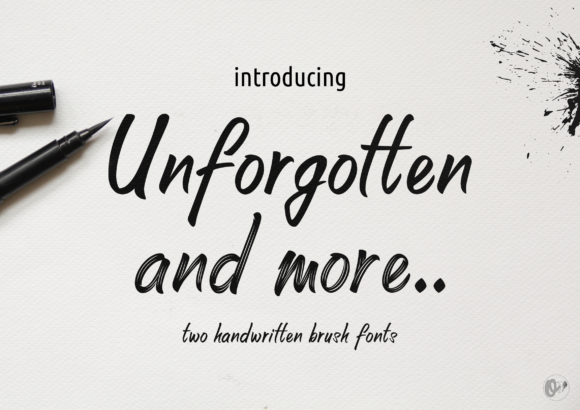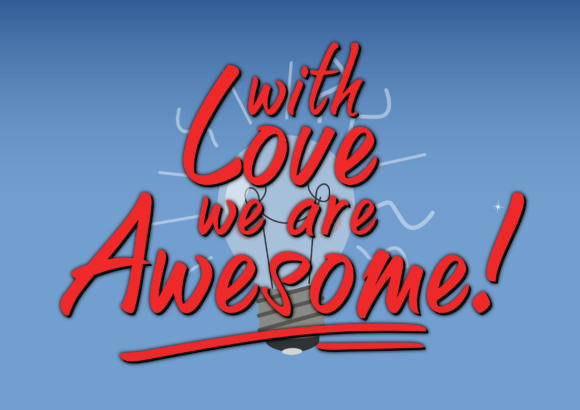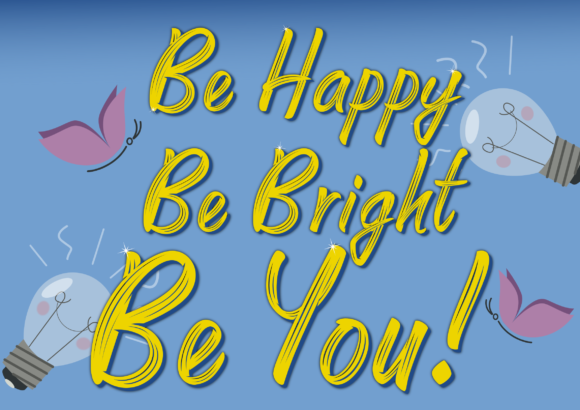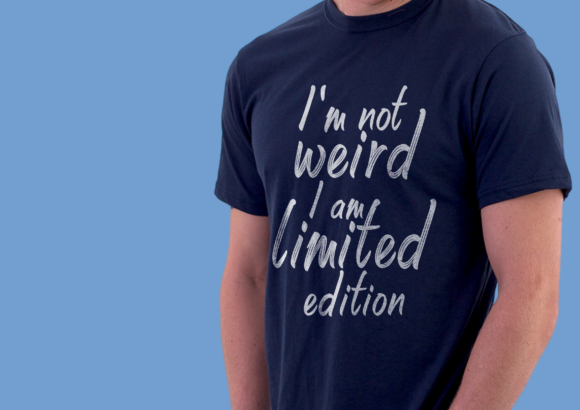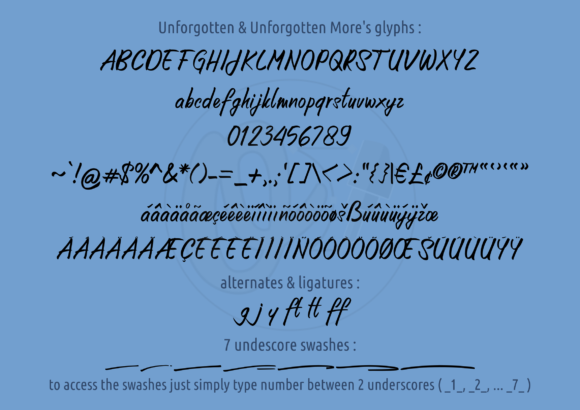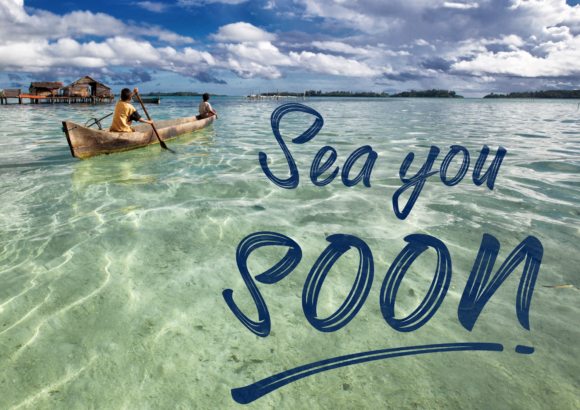
HomeScript FontsUnforgotten Font Script Fonts Unforgotten Font FacebookXPinterestWhatsApp Unforgotten Font Poster 2 Unforgotten Font Poster 3 Unforgotten Font Poster 4 Unforgotten Font Poster 5 Unforgotten Font Poster 6 About Unforgotten Font Unforgotten is light and casual handwritten font with a unique feel. Get inspired by its authentic vibe. DOWNLOAD ON CREATIVE FABRICAThis font is sold and delivered by Creative Fabrica. Font Canyon may earn a commission if you buy through this link. People also explored Mandala Font Abigail Font Freedom Font Betterboxes Font Bargain Hunter Hallimun Font Christmas Font Americana Abnormal Grow Font 355 0 TagsUnforgotten Font Previous articleAmigos FontNext articleBaladewa Font LEAVE A REPLY Cancel reply Comment: Please enter your comment! Name:* Please enter your name here Email:* You have entered an incorrect email address! Please enter your email address here Website: Save my name, email, and website in this browser for the next time I comment. Personal Use Free Gupis Personal Use Free Read more about this font Bajt Rounded Personal Use Free Read more about this font Where the Cookies Personal Use Free Read more about this font Predators Personal Use Free Read more about this font BLOG Top 7 Google Fonts Alternatives for Faster and Privacy-Friendly Web Design (2025) Top 7 Google Fonts Alternatives for Faster and Privacy-Friendly Web Design (2025) When it comes to web typography, Google Fonts has long been the go-to... Exploring Font Trends Fonts That Capture the Spirit of New York City The 10 Best Handwriting Fonts to Add Personality to Your Designs